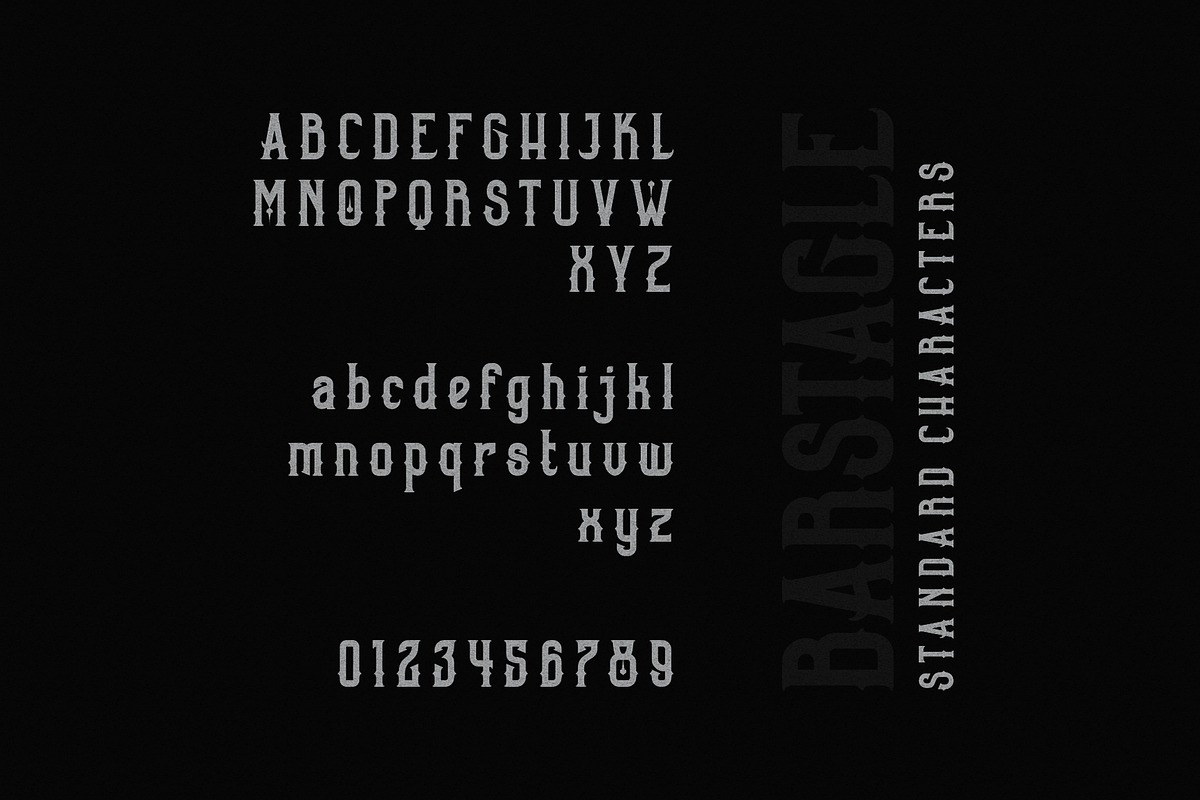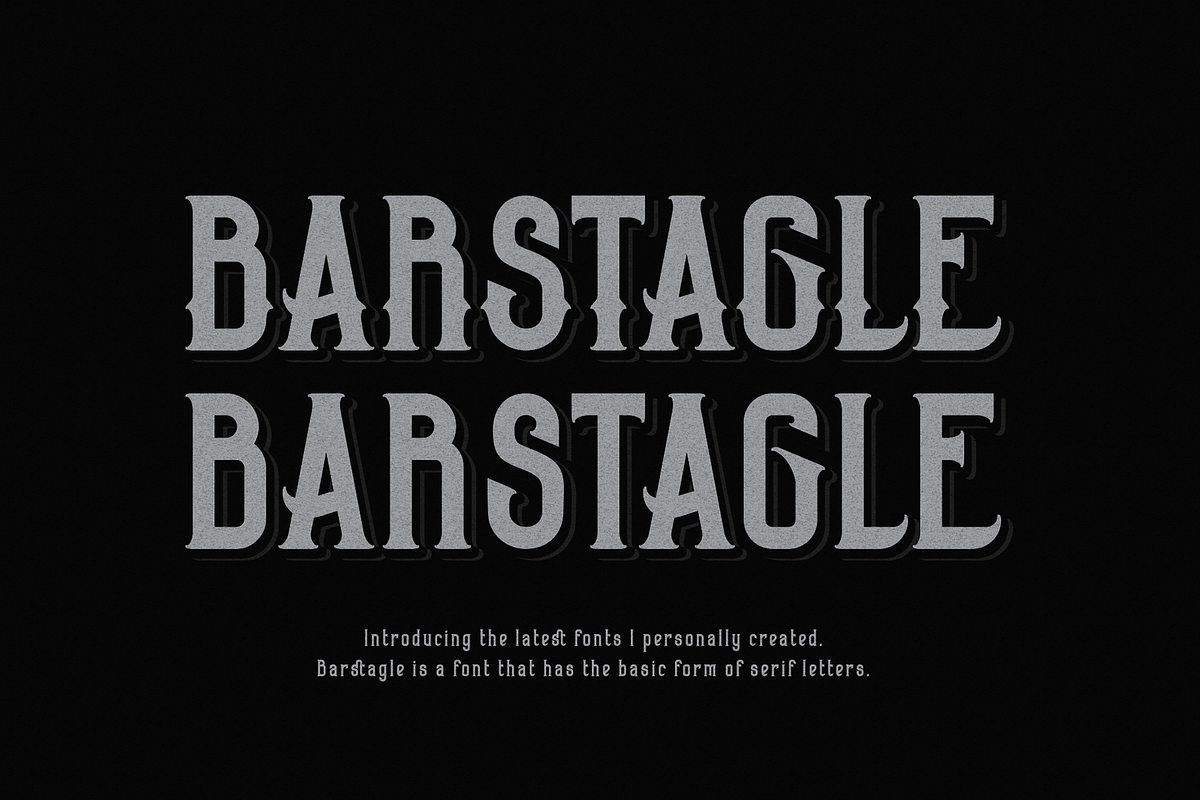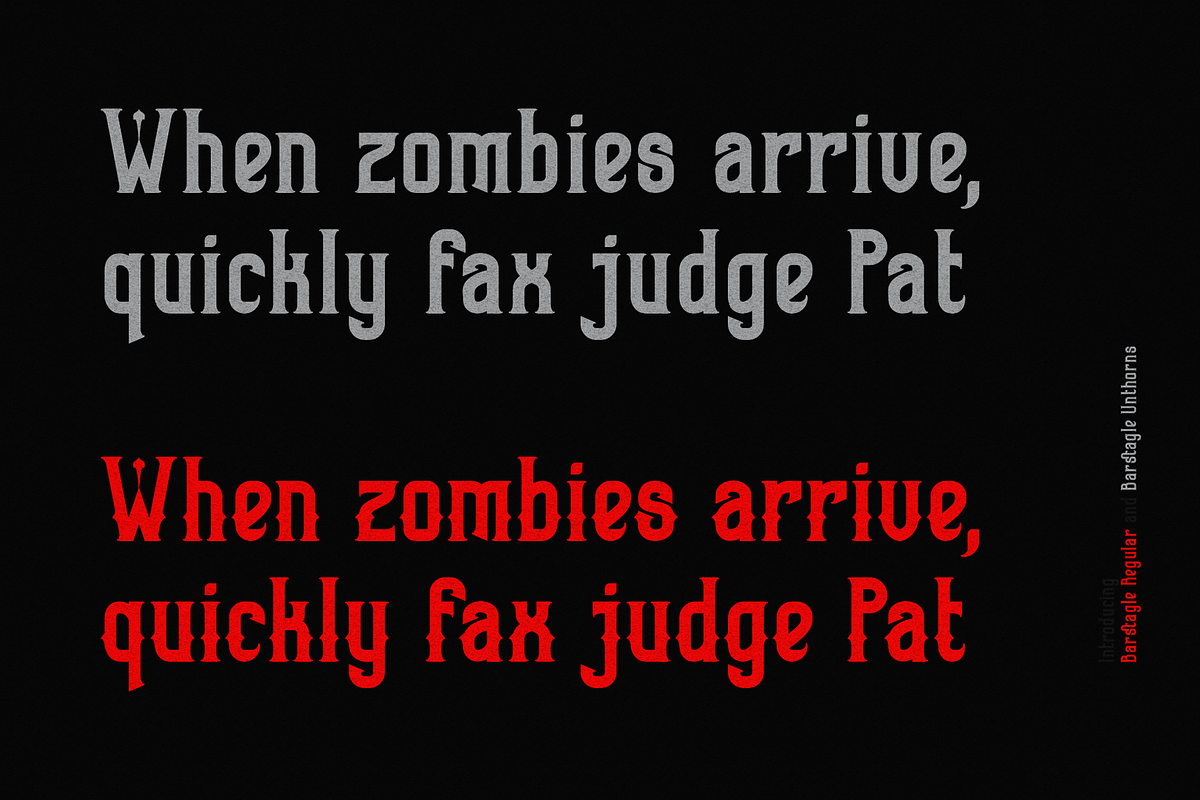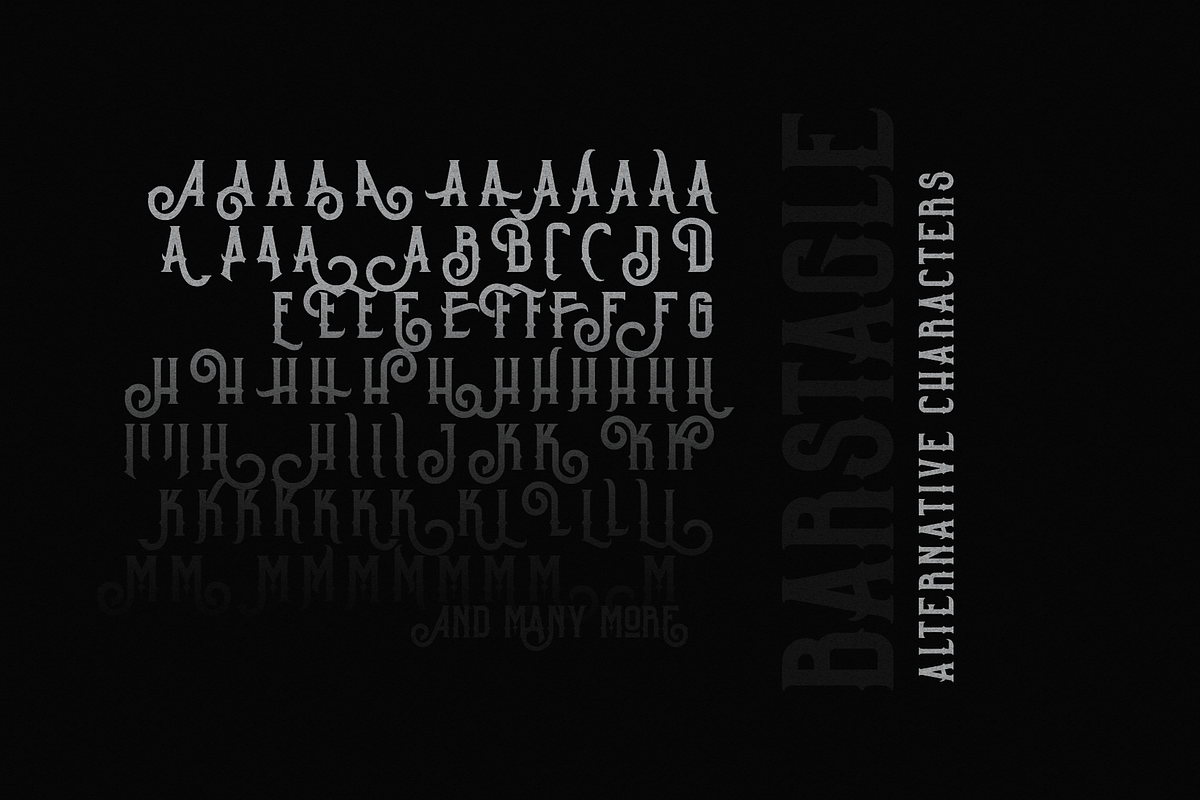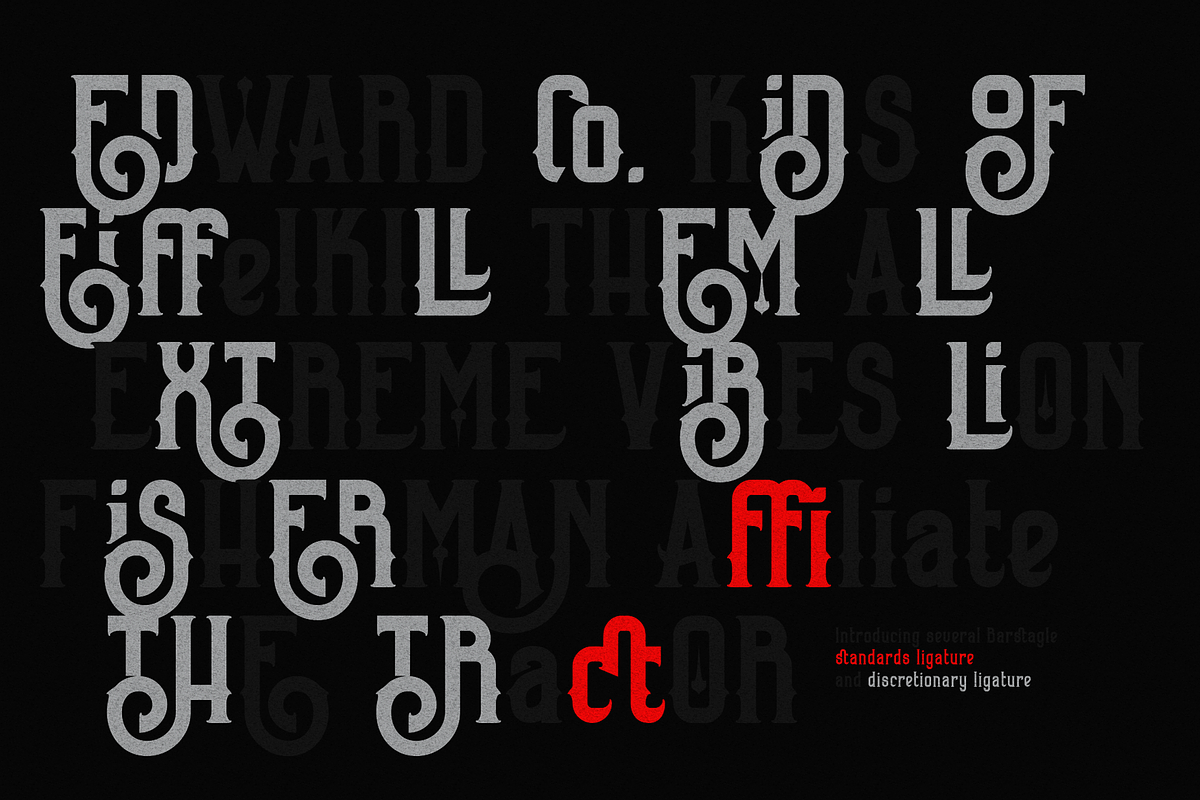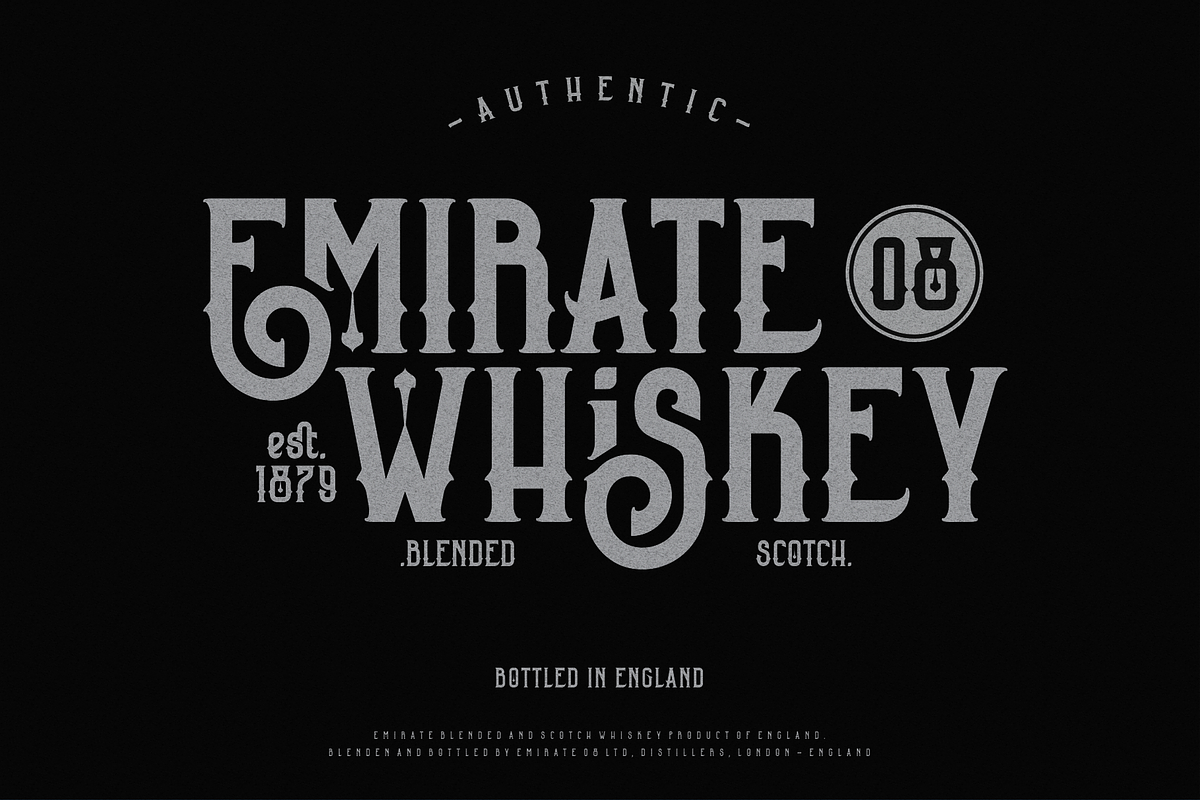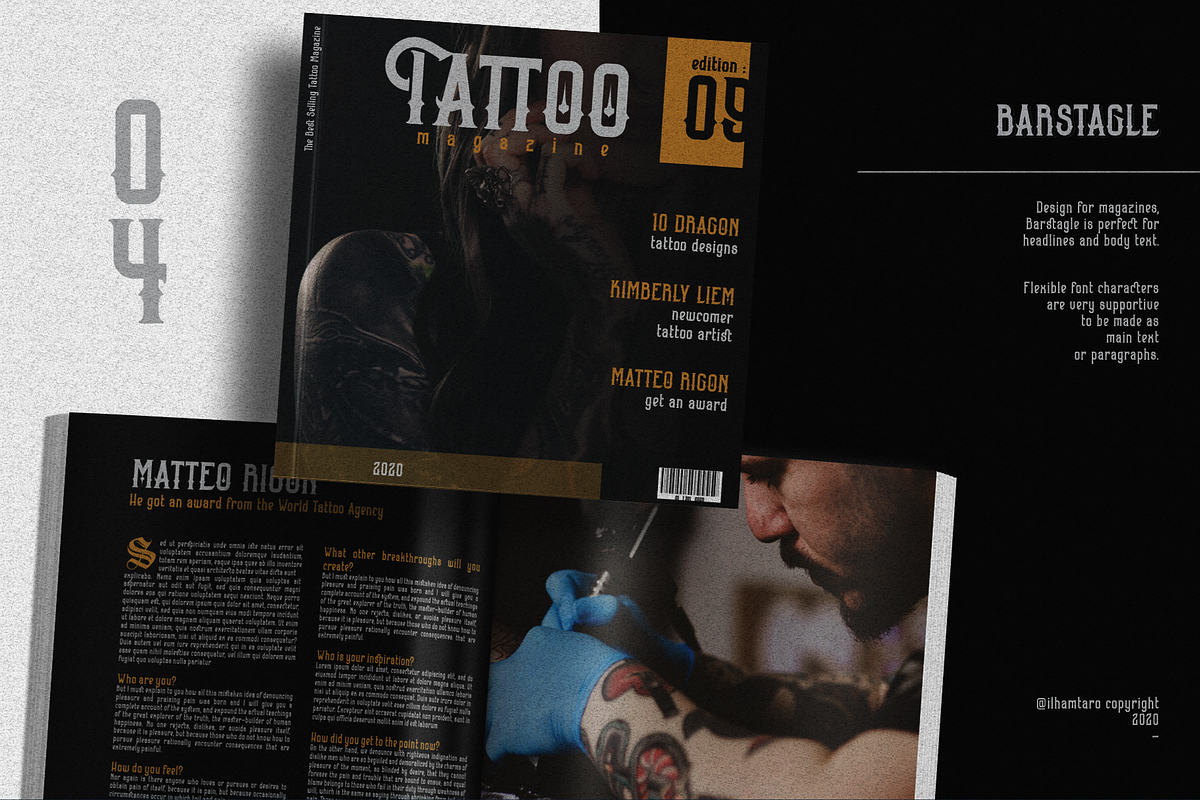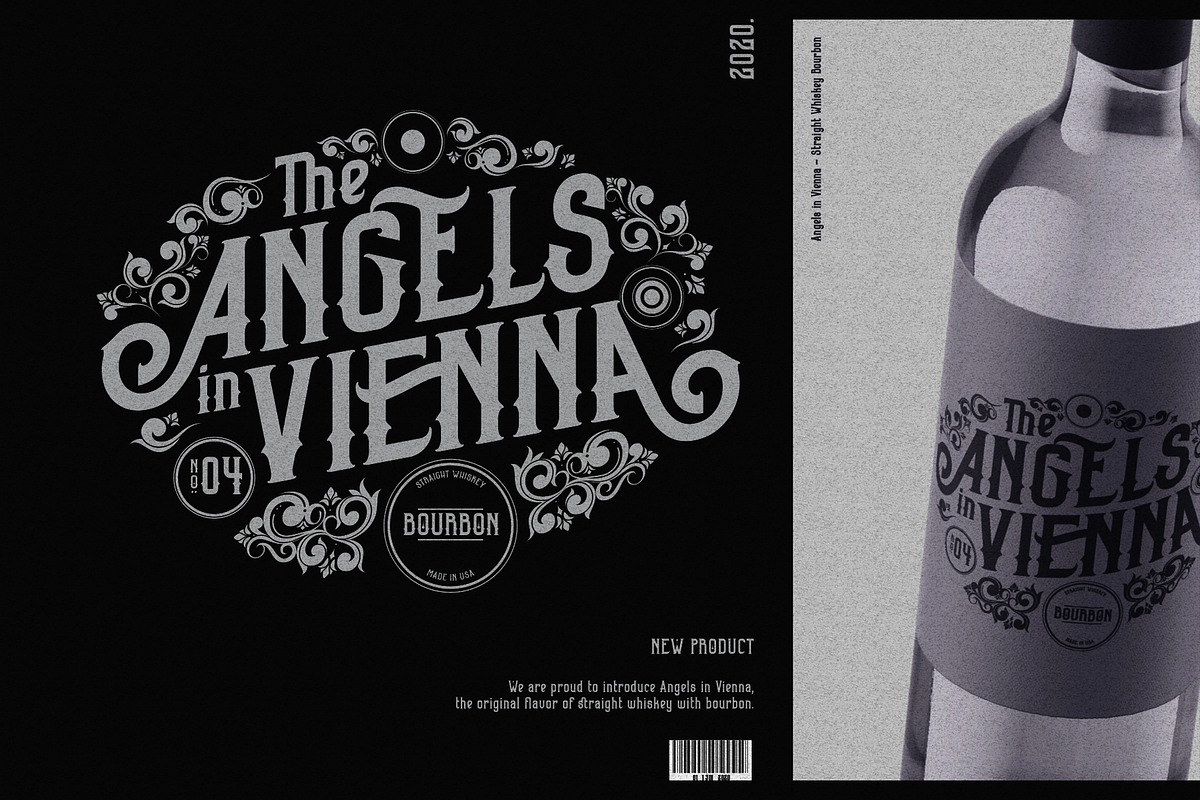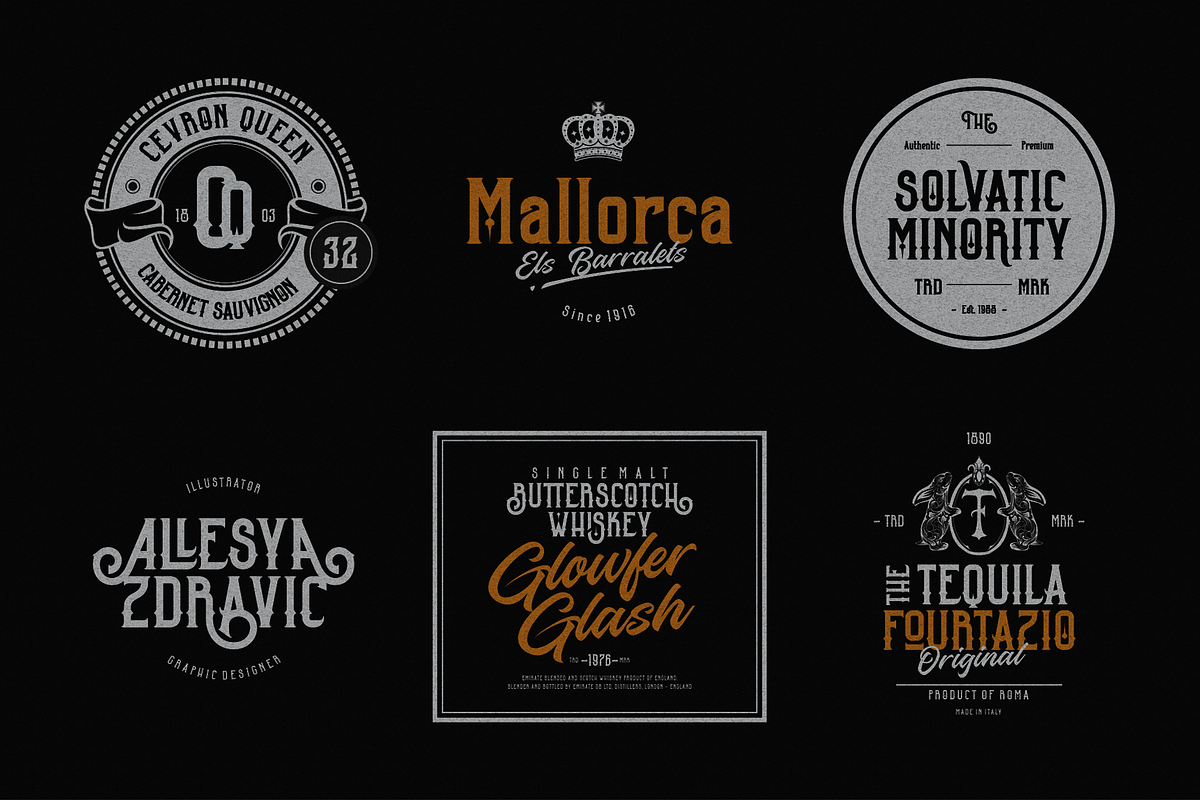
Barstagle for Vintage Brand & Logo
BARSTAGLE -- is a serif font, with a slight gothic touch to the regular family. Barstagle is perfect for headlines and body text. Also great for making logotypes, badge designs, liquor label designs, magazine covers, paragraph headlines or as paragraphs.
Barstagle comes in 2 versions, regular and unthorns, you can see the difference in the cover preview section of this font. Consists of Uppercase, Lowercase, Numbers and Punctuation, as well as many Standard Ligature and Discretionary Ligature as supporters of the Capital Letter. And many Alternative Character on the big melee too.
Alternate Characters.
Ligatures.
Discretionary Ligatures.
Support Multilingual Characters.